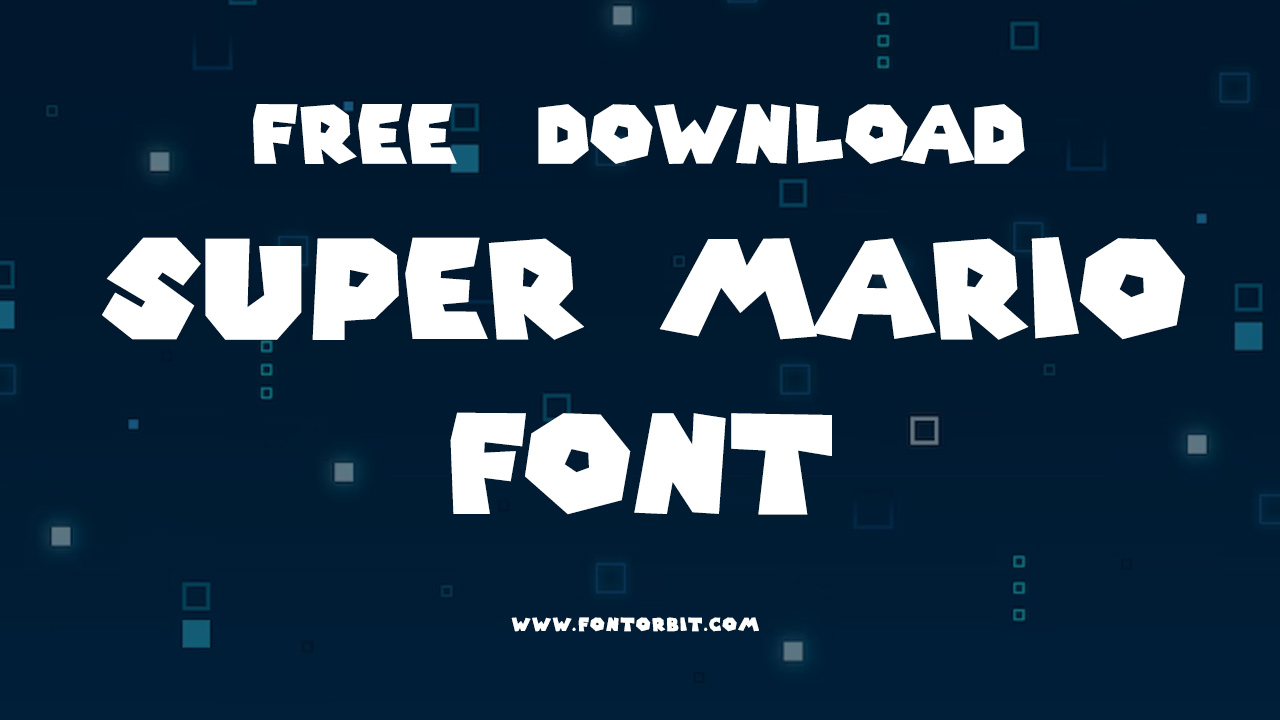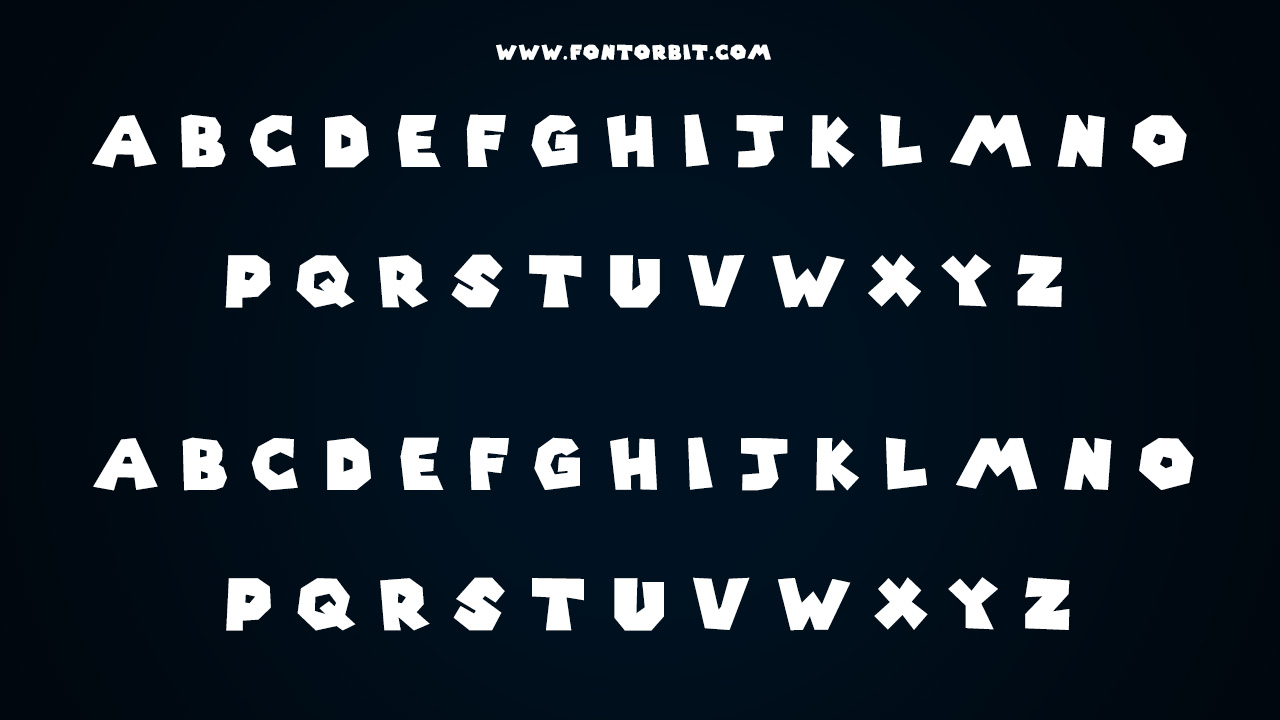
The iconic logo of the beloved Nintendo video game series inspires the Super Mario Font. Renowned for its vibrant and playful aesthetic, this font captures the essence of Mario’s adventures in the Mushroom Kingdom. Download the Super Mario 256 font created by fsuarez913.
Type Of The Super Mario Font (Font Family)
The Super Mario Font is a display typeface with bold, playful letters. It is primarily designed in uppercase, featuring a limited range of numerals and punctuation marks. The main variants include:
- Super Mario 256
- Gamtex
The Super Mario Font is perfect for adding a fun, nostalgic touch to a variety of creative projects. Its playful design makes it ideal for:
- Banners
- Fan art
- Apparels
- Decorations
- Merchandise
- Party invitations
- Website Headers
- Video game-themed graphics
The Super Mario Font Found In Use
The Super Mario Font is widely used in designs related to gaming and pop culture, bringing a whimsical element to various projects. It’s particularly popular among fans and creators looking to evoke the charm of the Mario franchise.
The Super Mario Font is a lively typeface that brings a touch of nostalgia to any design project. Perfect for gaming-related materials, it allows designers to capture the spirit of the beloved Mario franchise while adding a playful flair.
1.What Are The Characteristics Of The Super Mario Font?
The Super Mario Font features bold, uppercase letters with a playful, retro style, reflecting the iconic design of the game’s logo.
2.What Are The Considerations For Using Super Mario Font In Branding?
Ensure that the font aligns with your brand’s playful and fun image. It’s ideal for projects targeting gaming enthusiasts or children, but may not suit more serious themes.
3.What Are The Limitations Of Using Super Mario Font In Design?
Its playful style might not convey professionalism, making it unsuitable for corporate or formal designs.
5.What Are The Differences Between Super Mario Font And Other Playful Fonts?
The Super Mario Font has a distinct retro gaming aesthetic, while other playful fonts may have varied styles, from whimsical to cartoonish.
7.How To Create A Pixelated Effect With Super Mario Font?
You can apply a pixelation effect in graphic design software to emphasize the retro gaming style, enhancing its nostalgic feel.
9.What Styles Are Popular In Super Mario Fonts?
Playful, retro, and pixelated styles are popular, offering a fun look suitable for gaming and pop culture applications.